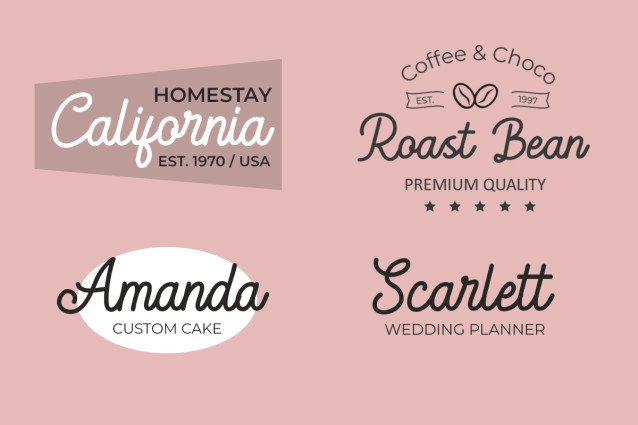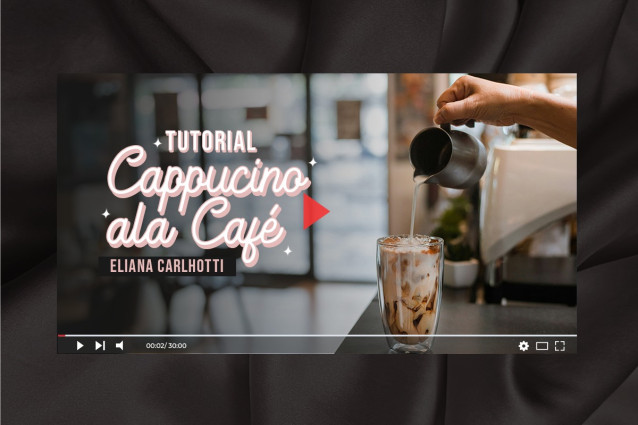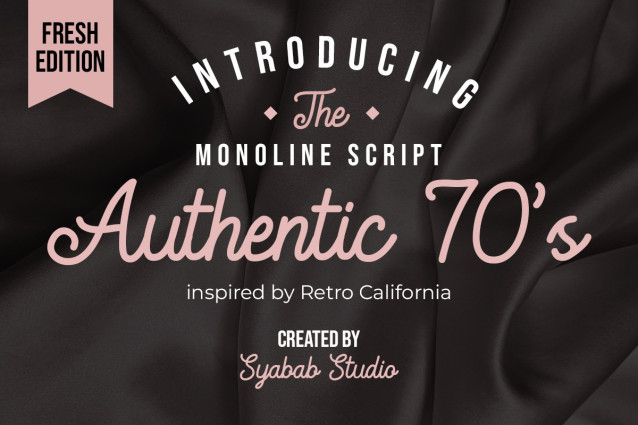
Authentic 70’s Font
Authentic 70’s Font is a font inspired by the California era of the 70’s designed with aesthetics and modernity for an extraordinary future. This font is very suitable for enhancing your design projects in fashion businesses, wedding planners, restaurants, and cafes.
This font is perfect for your creative projects such as Logotype, printed quotes, invitations, cards, product packaging, headers, Letterhead, Apparel, Web design, Magazine, Book, etc.